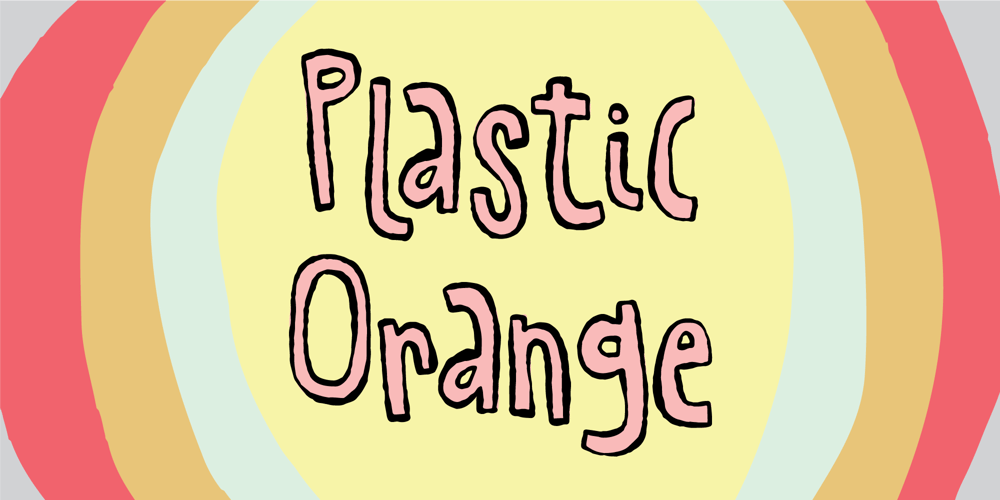
Plastic Orange Font Family was designed by Jakob Fischer and published by PizzaDude.dk. Plastic Orange contains 2 styles and family package options. Orange is one of my favourite colours – not when choosing clothes or decorating my home. But I like the different shades of orange in my designs.Well, ironically I don’t fancy plastic, but the same suited this font perfectly. And that settled it! :)Plastic Orange is my handmade organic comic font. It comes with a complimentary outline, made using a wobbly pen.